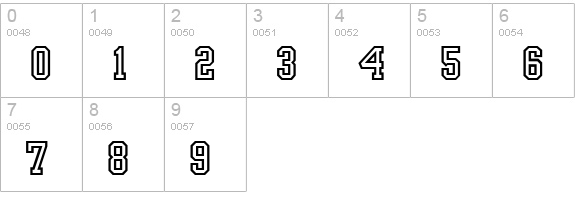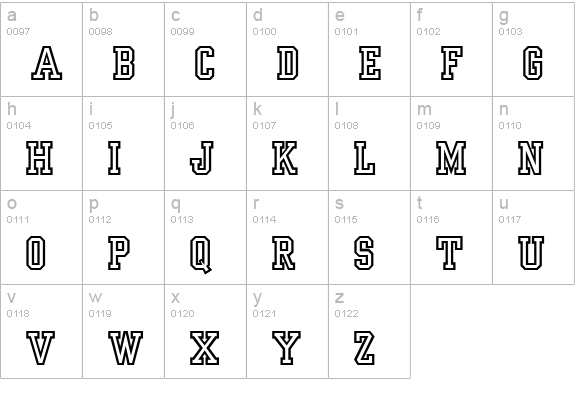
CgYearbookOutline Font Details
CgYearbookOutline font is a classic and elegant typeface that brings a touch of sophistication to any design. With its clean lines and timeless appeal, this font is perfect for creating eye-catching headlines, invitations, and more. The outline style adds a modern twist, making it versatile for both traditional and contemporary projects. Best of all, CgYearbookOutline font is completely free to download at FontsMarket.com. Whether you're a professional designer or a hobbyist looking to elevate your projects, this font is a must-have addition to your collection. Don't miss out on the opportunity to enhance your designs with this beautiful and versatile typeface today!